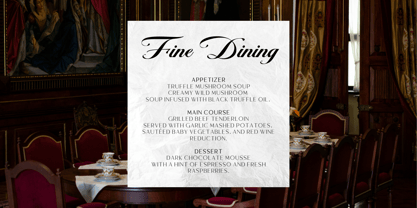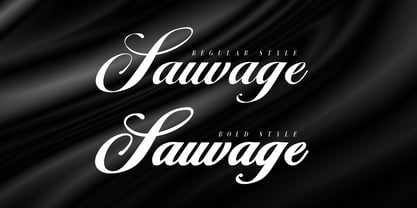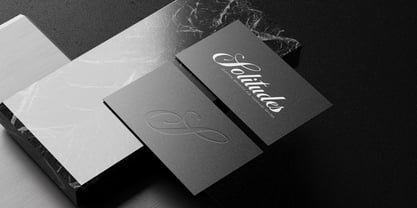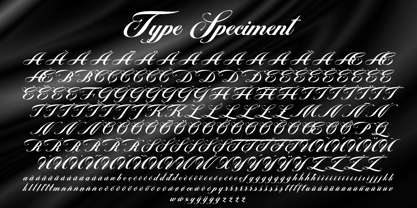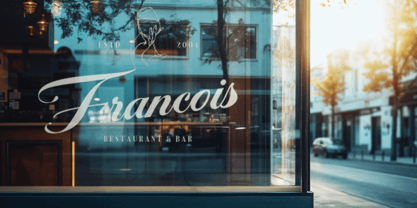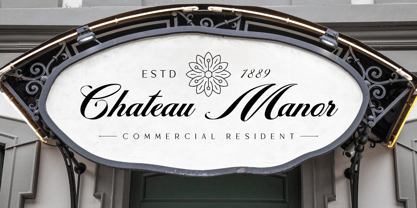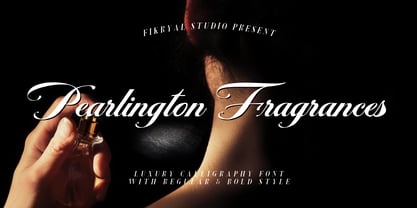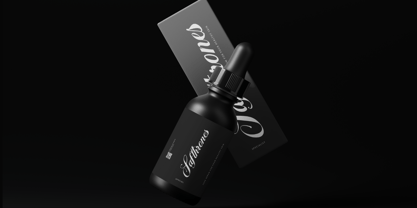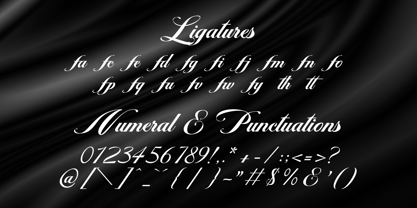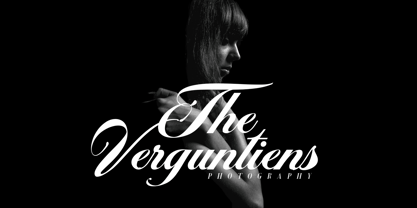
Pearlington Fragrances
by Fikryal
The Pearlington Fragrances Font Family was designed by Muhammad Fikry and published by Fikryal. Pearlington Fragrances contains 2 styles and family package options. More about this family
Pearlington Fragrances is a timeless luxury calligraphy font that exudes elegance and sophistication in every stroke. Designed to elevate your creative projects, this font offers two exquisite styles, Regular and Bold, perfect for making a bold statement or a delicate impression.
With extensive multilingual support, Pearlington Fragrances seamlessly adapts to a global audience, making it an ideal choice for international branding and design. Its artful ligatures add a touch of refinement, creating a seamless handwritten aesthetic that feels personal and exclusive.
Whether you’re crafting luxury branding, wedding invitations, bespoke logos, or high-end packaging, Pearlington Fragrances delivers unparalleled charm and grace to your designs.
Key Features
• Two Styles: Regular and Bold, offering flexibility for diverse design needs.
• Multilingual Support: Covers a wide range of languages for global reach.
• Elegant Ligatures: Adds artistic flair and enhances the handwritten look.
Bring timeless sophistication to your designs with Pearlington Fragrances.